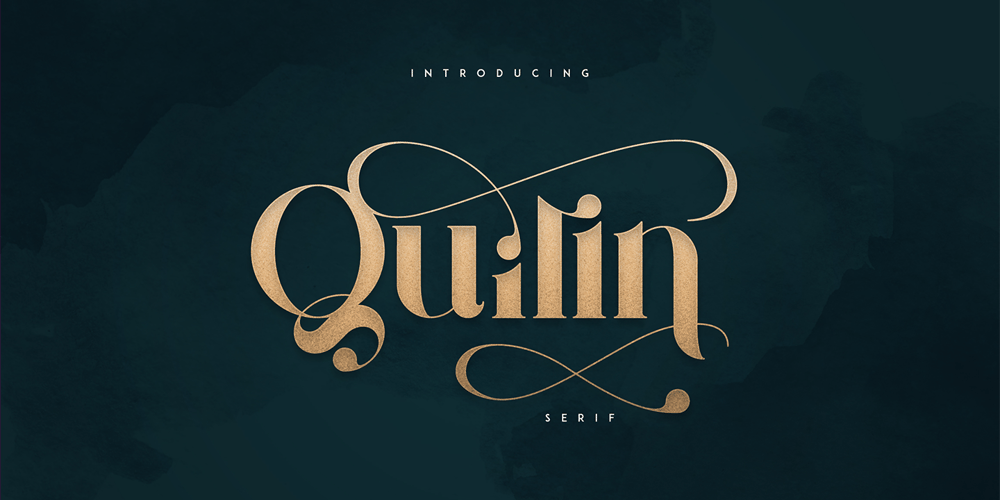
Quilin
Quilin font
Quilin Font Family was designed by Vladimir Fedotov, Plamen Petrov and published by VP Creative Shop. Quilin contains 1 styles and family package options. Introducing Quilin Serif – latin and cyrullicQuilin is luxury, vintage typeface loaded with alternate glyphs, ligatures and multilingual support. It’s a very versatile font that works great in large and small sizes.Quilin is perfect for branding projects, home-ware designs, product packaging, magazine headers – or simply as a stylish text overlay to any background image. Uppercase, lowercase, numeral, punctuation & Symbol Alternate glyphs Ligatures Multilingual support Cyrillic support How to access alternate glyphs?To access alternate glyphs in Adobe InDesign or Illustrator, choose Window Type & Tables GlyphsIn Photoshop, choose Window Glyphs. In the panel that opens, click the Show menu and choose Alternates for Selection. Double-click an alternate’s thumbnail to swap them out.Feel free to contact me if you have any questions!Mock ups and backgrounds used are not included.Thank you! Enjoy!